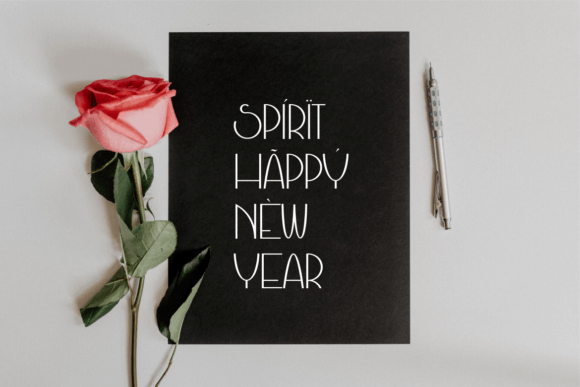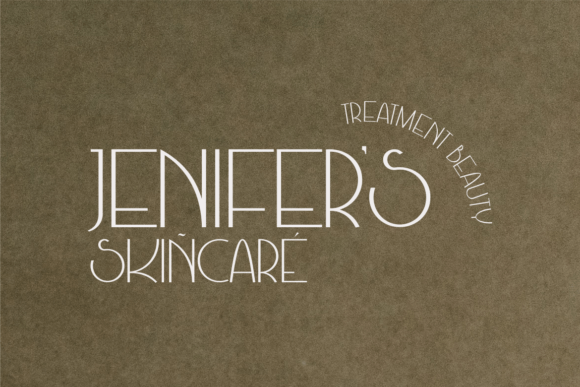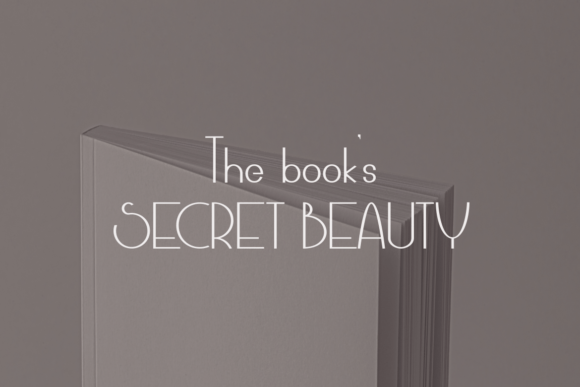
Skincare Font
Skincare is stylish and girly sans serif font. No matter the topic, this font will be an incredible asset to your fonts’ library, as it has the potential to elevate any creation.